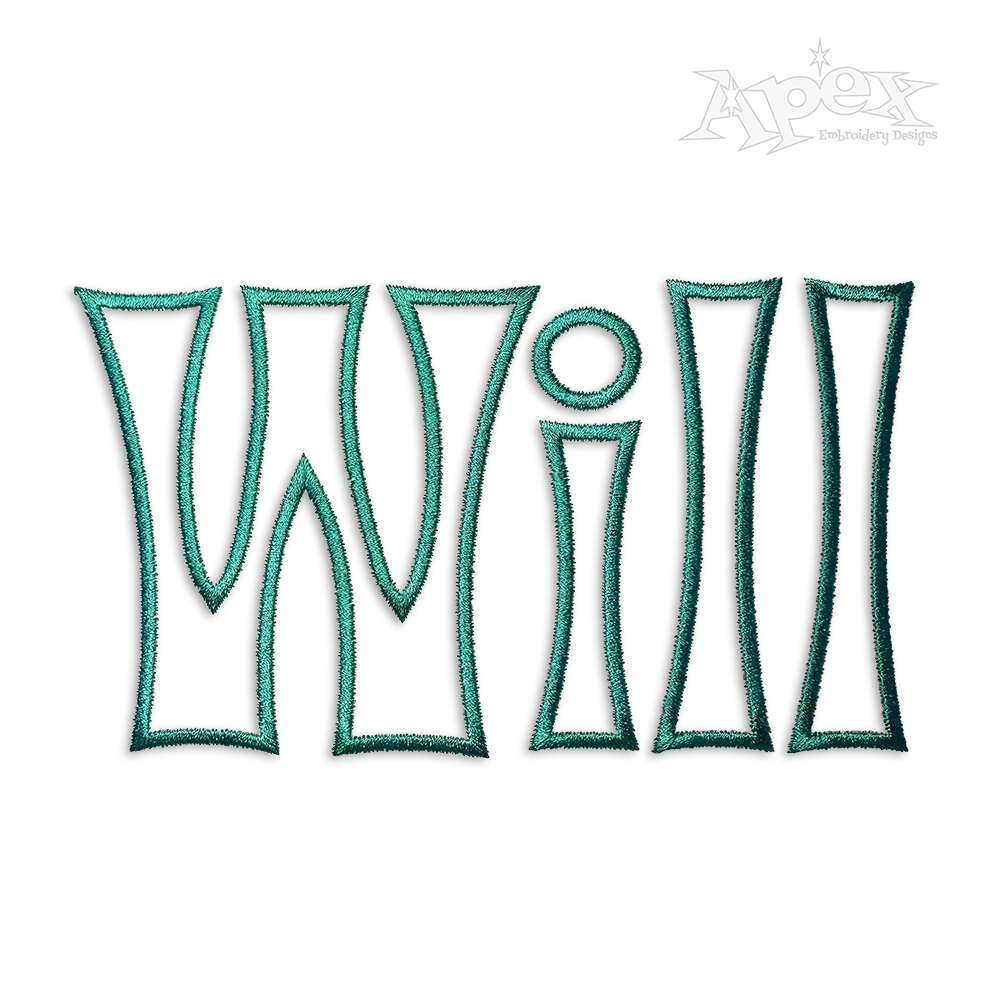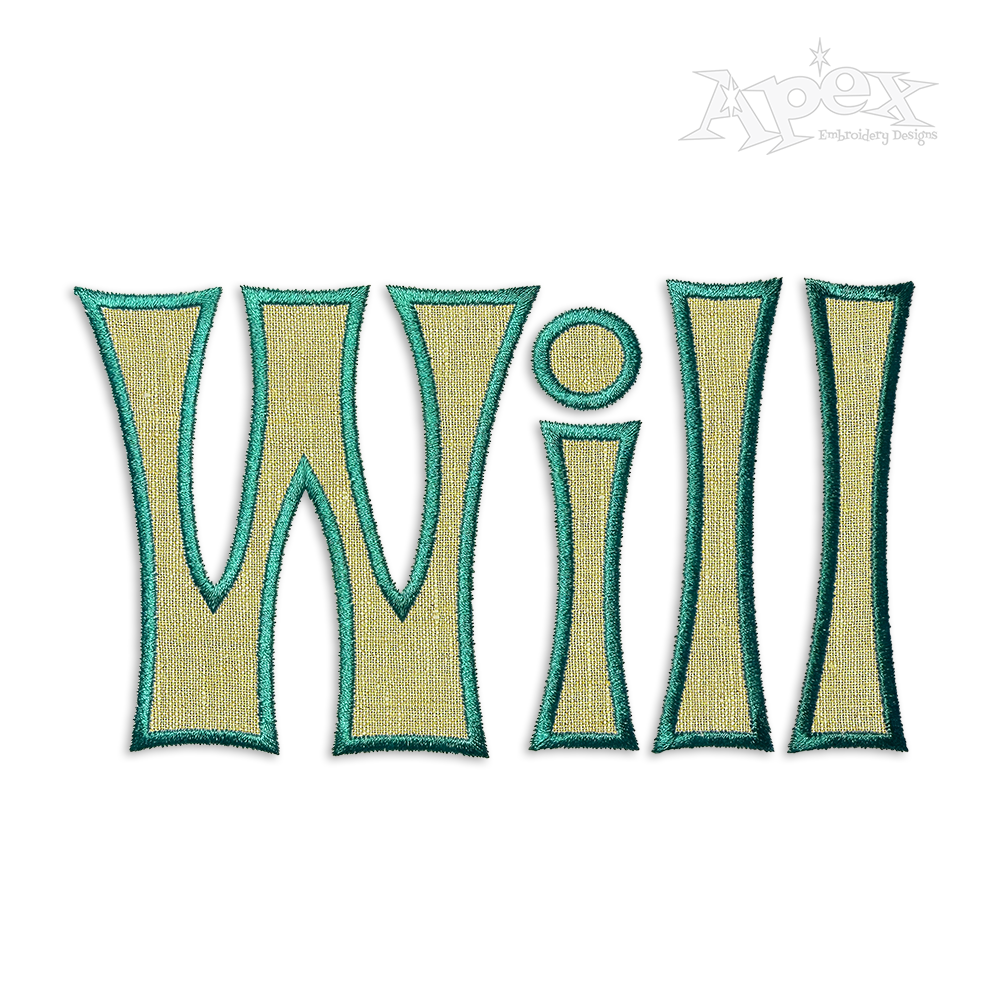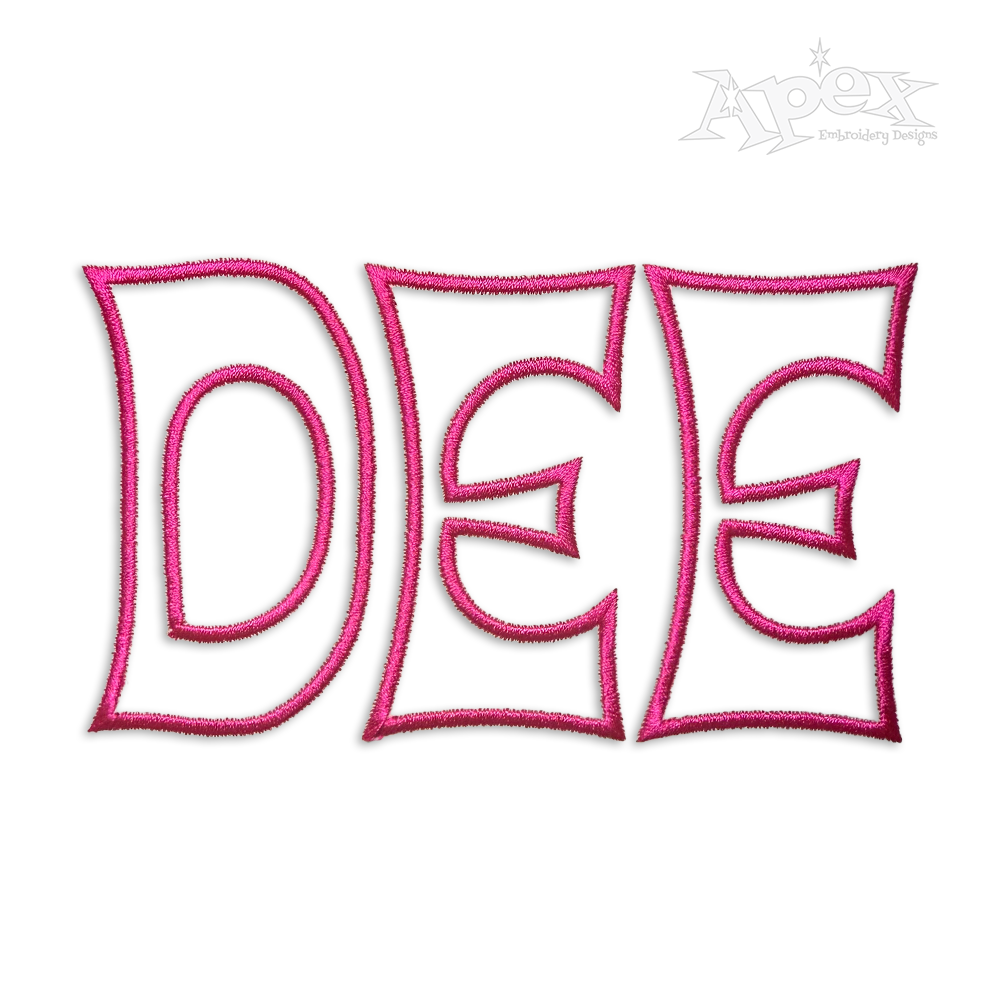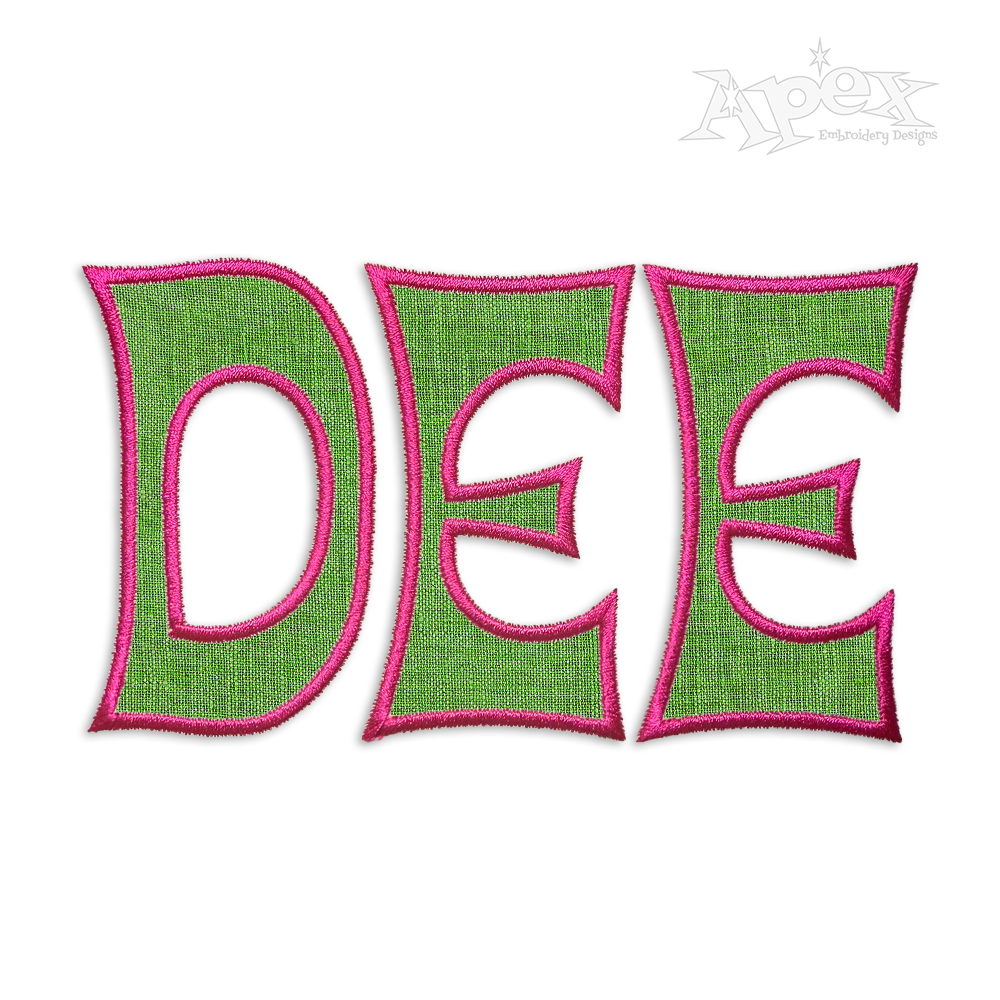
Tiki Island Applique Embroidery Font
Born from the breezy romance of Polynesian mid-century nostalgia and sun-drenched island escapes, the Tiki Island Applique Embroidery Font brings playful warmth and architectural charm to your hoop. When digitizing this tropical alphabet, our studio drew inspiration from hand-carved island signboards, retro surf culture, and exotic trade-wind botanicals. Each letter is crafted with generous applique windows designed to showcase your favorite vibrant prints, batiks, and resort-ready linens, accompanied by standalone tropical blossoms that capture the effortless whimsy of an endless summer afternoon.
The Tiki Island collection is precision-digitized in three commanding scale options to anchor everything from children's beach accessories to dramatic home accents, with each size including both full uppercase letterforms and coordinating tropical flower motifs:
- 4-inch Set: Perfect for children’s sunwear, small canvas pouches, and tote bag pocket details (full alphabet plus coordinating island flowers).
- 6-inch Set: Beautifully proportioned for beach towel monograms, pillow centers, and casual resort apparel (full alphabet plus coordinating island flowers).
- 8-inch Set: A breathtaking statement size designed for oversized market totes, wall hangings, and denim back yokes (full alphabet plus coordinating island flowers).
Project Ideas for Tiki Island Applique Embroidery Font
- Bespoke Resort Wear: Create retro-inspired luau shirts, vacation tunics, and breezy linen poolside coverups featuring bold initial monograms.
- Custom Beach & Boat Totes: Layer cheerful gingham or tropical foliage fabrics into the applique fields of heavy canvas duffels and woven straw carryalls.
- Heirloom Cabana Towels: Personalize oversized velour bath sheets and striped deck towels for memorable family beach getaways.
- Tropical Nursery & Children’s Keepsakes: Stitch bright, cheerful names or initials onto sun rompers, play quilts, and coastal nursery decor.
- Al Fresco Entertaining Accents: Embroider outdoor patio cushions, table runners, and personalized drink caddies for tiki cocktail parties and summer barbecues.
- Oversized Tote Bag Front: Position the 6-inch or 8-inch letters directly centered between strap lines on heavy duck canvas for instant resort-ready sophistication.
- Jacket Back Center: Use the 8-inch scale across the center back of a denim or twill chore jacket, tucking the included floral embroidery accents around the letter's apex for an artisan bohemian touch.
- Deck Towel Border: Center the monogram 3 to 4 inches above the lower hem or above woven dobby bands for clean, balanced visual grounding.
- Accent Pillow Face: Center a 6-inch single initial directly in the middle of a 16- or 18-inch square linen pillow, scattering the companion flower motifs asymmetrically along the corners.
Tiki Island Applique Embroidery Font Craft & Letterform Details
The magic of the Tiki Island alphabet lies in the interplay between bold, angular woodblock geometry and soft, organic detailing. We designed each glyph with wide open applique wells, framed by smooth, uniform contouring that ensures crisp scissors work or pre-cut fabric alignment without pinching corners. Beneath the beauty is robust digitizing craft: clean, triple-run placement outlines followed by firm material tack-downs, finished with lush, high-density satin border stitching calibrated to encase raw fabric edges securely while maintaining supple flexibility in the hand. The coordinating tropical floral elements are mapped with layered satin-stitch petals and rich seed centers, allowing you to nestle blossoms directly against the letter stems or stitch them as freestanding accents for truly bespoke monogram layouts.